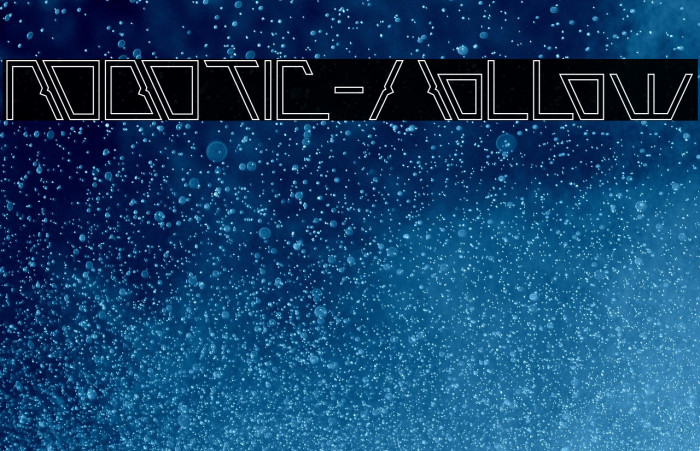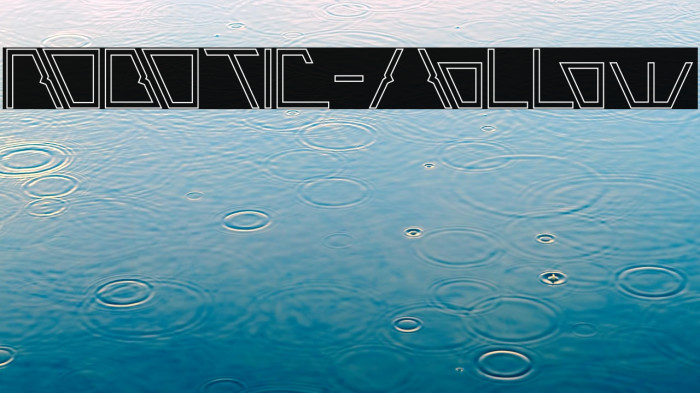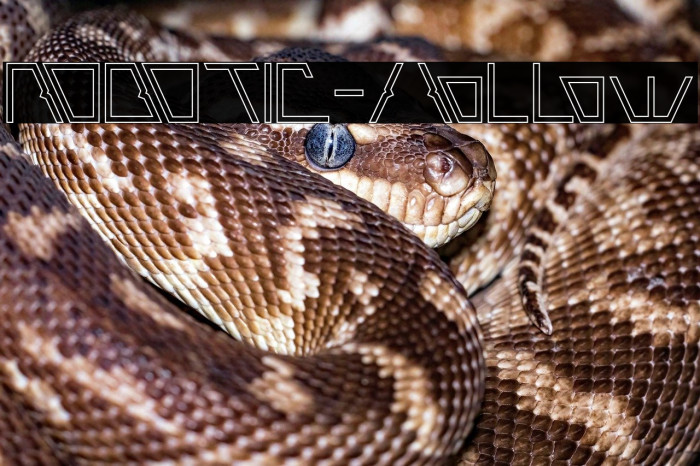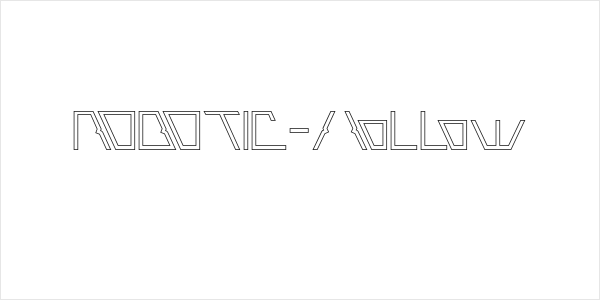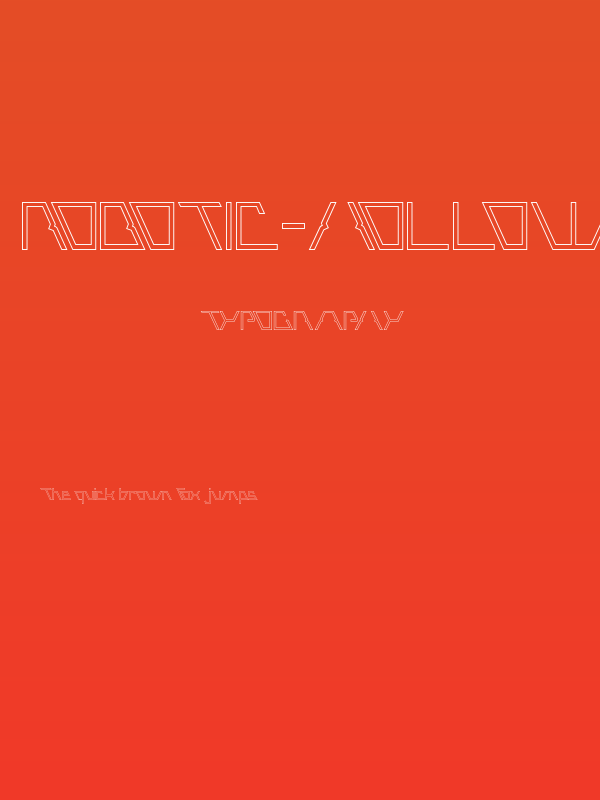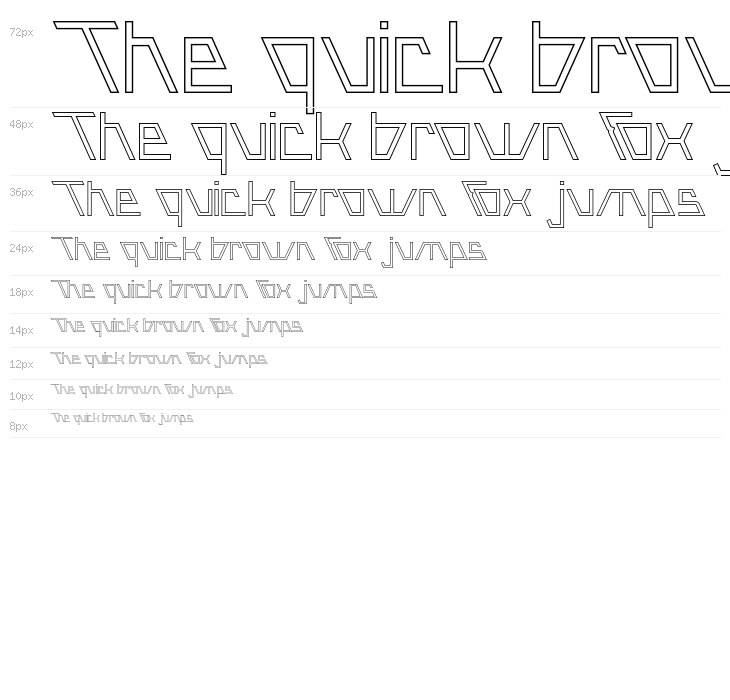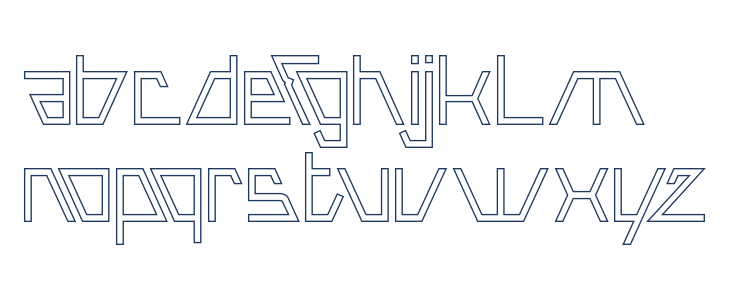
ROBOTIC-Hollow Font
ROBOTIC-Hollow Description
This font features a futuristic and geometric design, characterized by its hollow, angular letterforms. Each character is constructed with sharp, clean lines that create a sense of precision and modernity. The uppercase and lowercase letters maintain a consistent style, with unique angles and cuts that give the font a robotic and technical appearance. Numbers and special characters follow the same design principles, ensuring uniformity across all glyphs. The font's hollow nature adds a distinctive touch, making it stand out in digital and print media. Its design is both minimalistic and complex, offering a visually intriguing experience.
| Proposed Projects | Ideal for technology-themed projects, sci-fi movie posters, video game titles, and modern branding. |